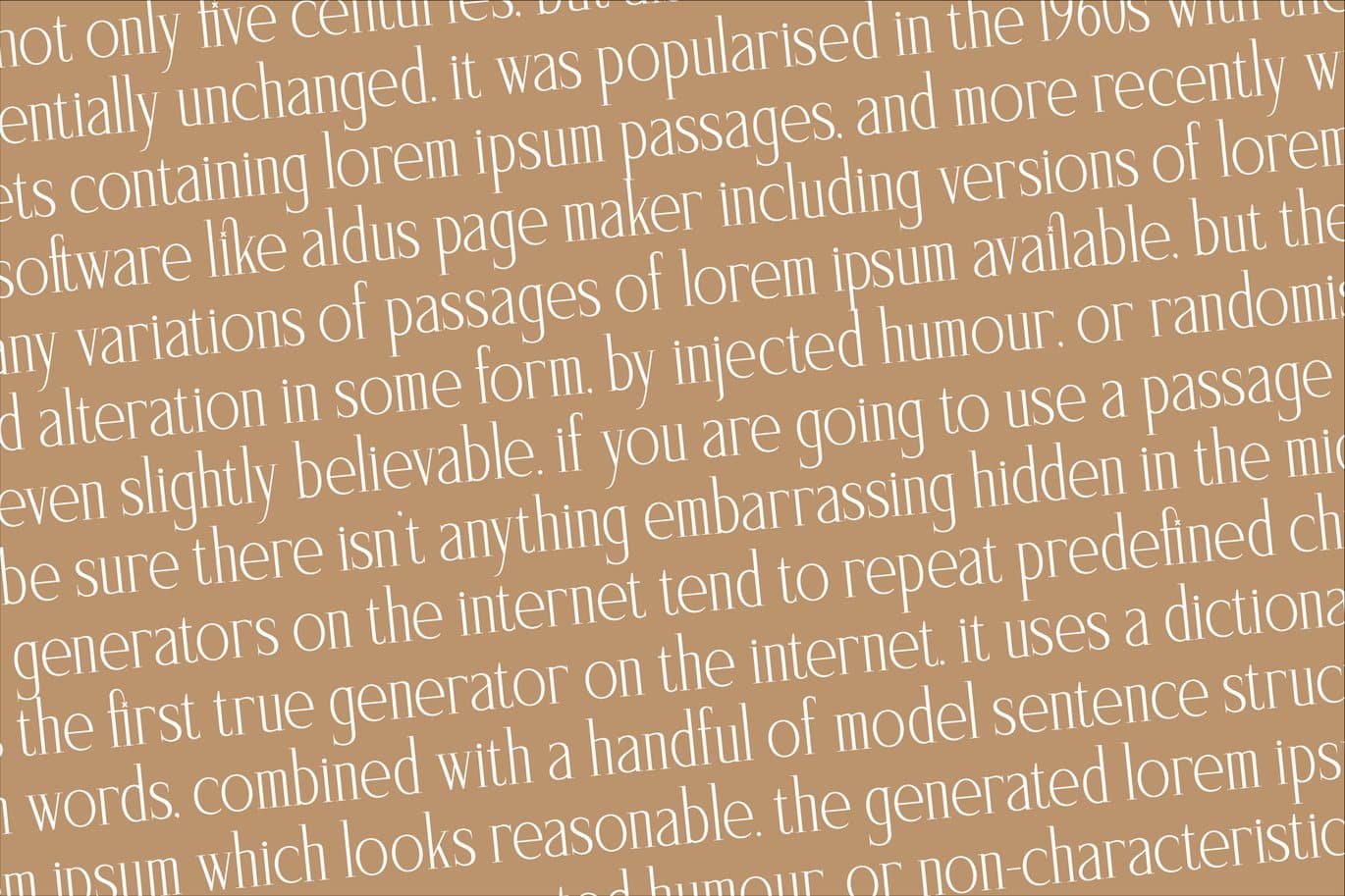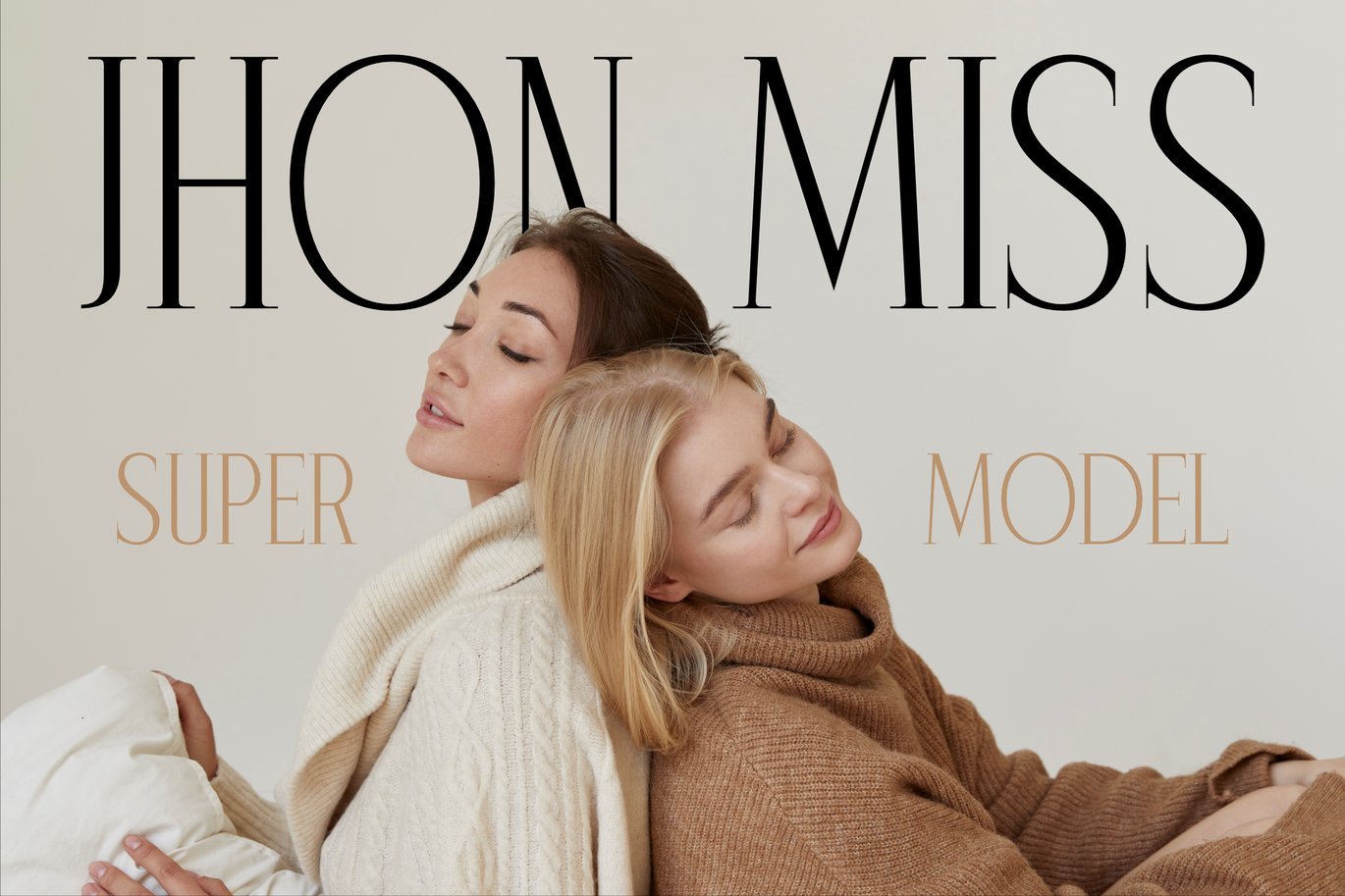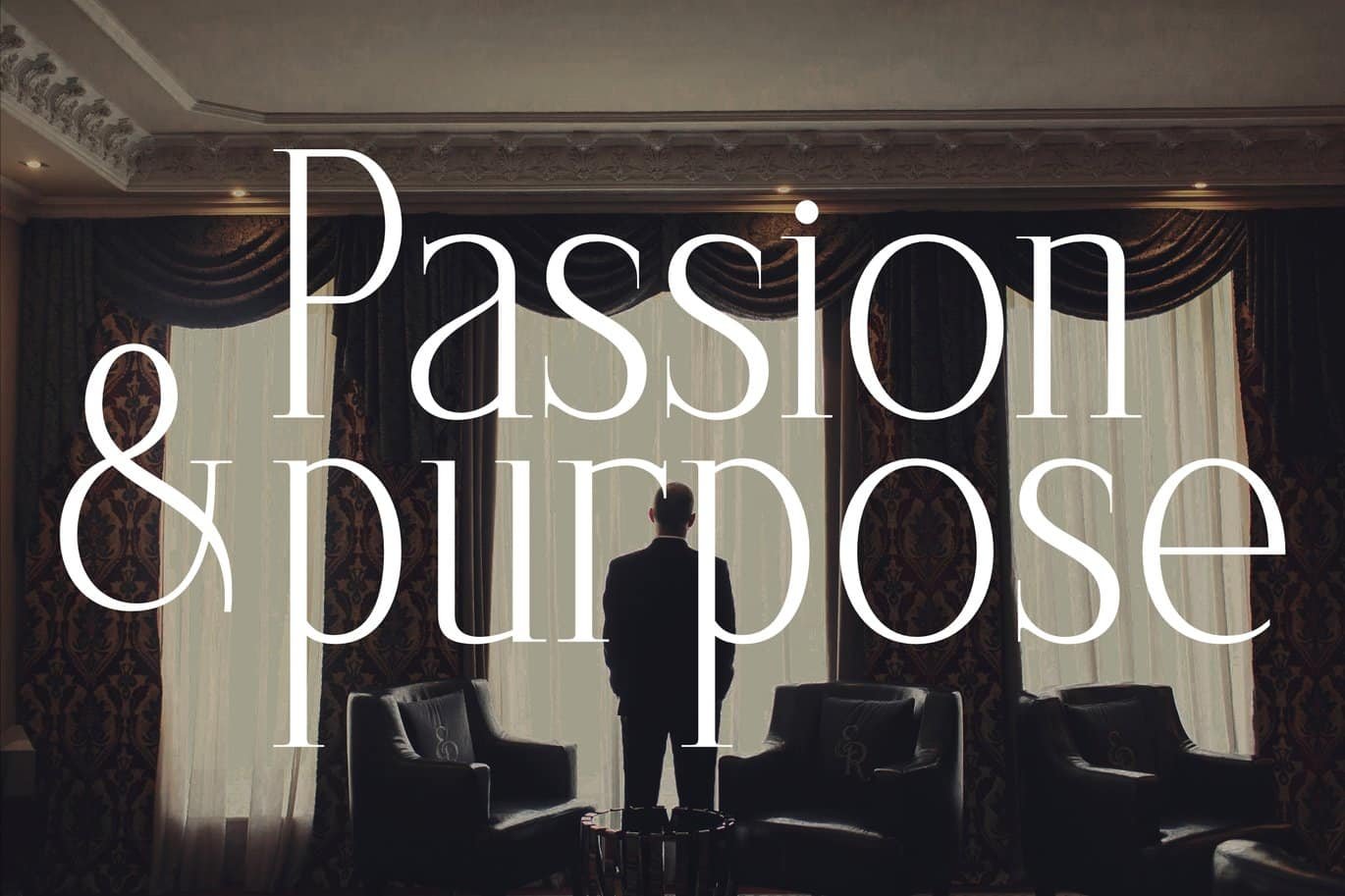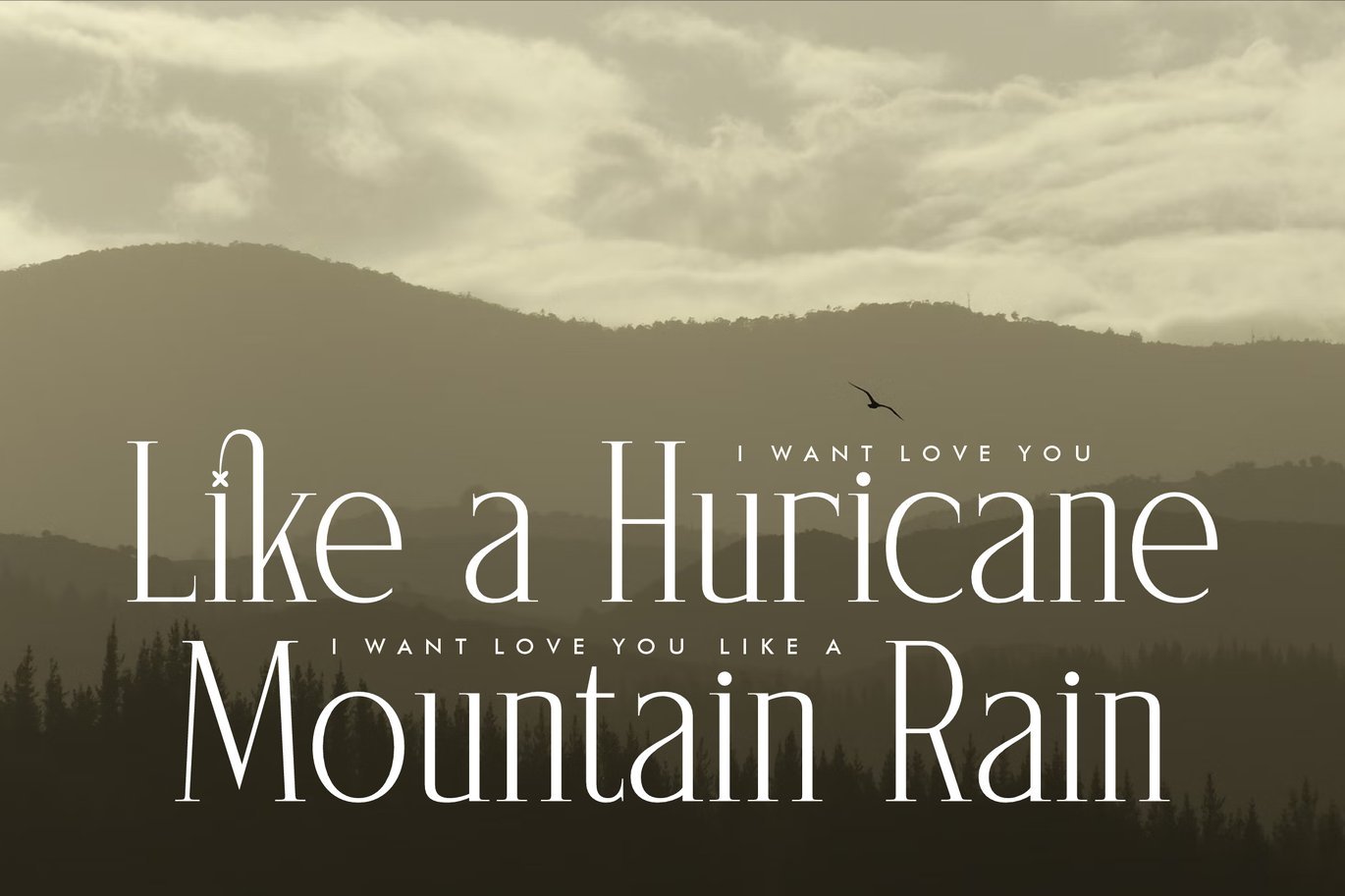
Saegathe Modern Serif Font
Saegathe is a modern serif font that blends timeless elegance with contemporary minimalism. Its refined letterforms, tall proportions, and unique ligatures create a perfect balance between sophistication and creativity.
Designed for those who seek a luxurious yet versatile typeface, Saegathe brings high-end aesthetics to any design — from fashion editorials and branding to invitations and packaging. Its graceful rhythm and distinctive personality make every layout stand out with style and confidence.
- Elegant Modern Serif
- Uppercase & Lowercase Letters
- Alternates & Ligatures
Perfect For:
- Luxury Branding & Identity Design
- Editorial & Magazine Layouts
- Fashion and Beauty Projects
- Invitations & Stationery Design
- Product Packaging
- Posters & Headlines
- Social Media Visuals
Where sophistication meets timeless style — Saegathe, a modern serif for refined expression.